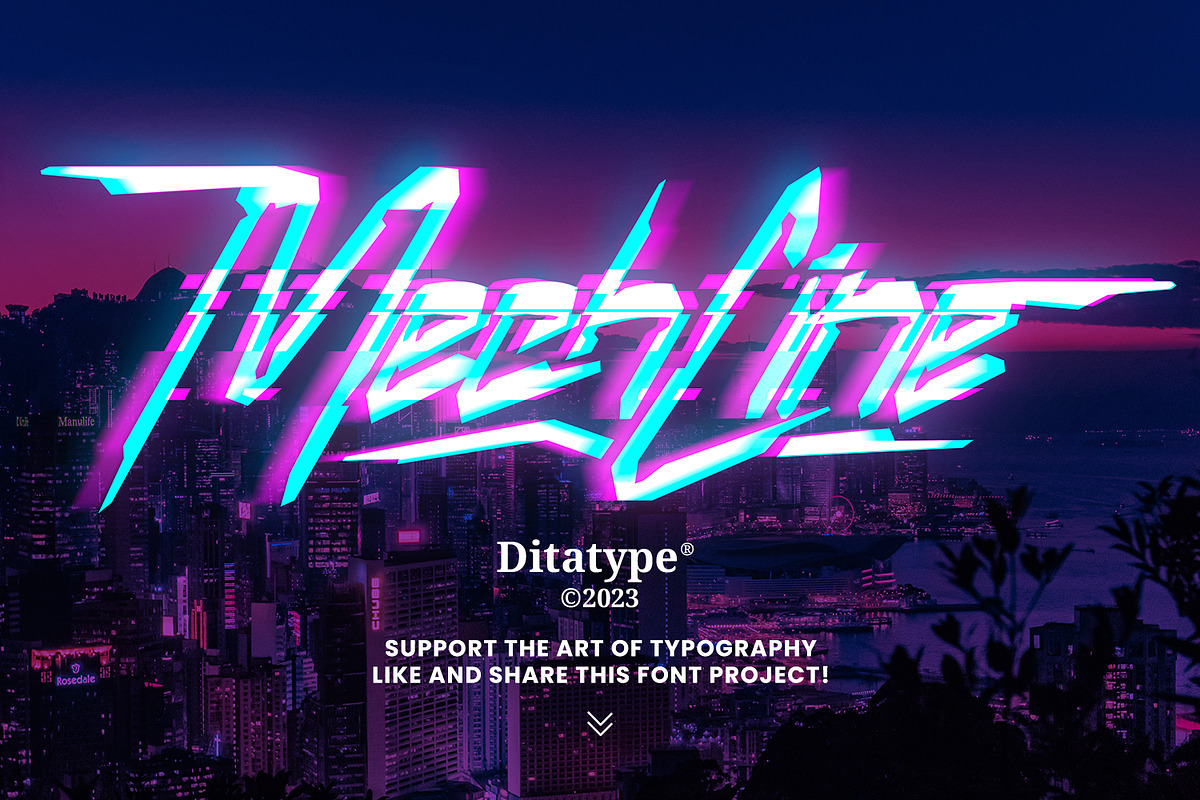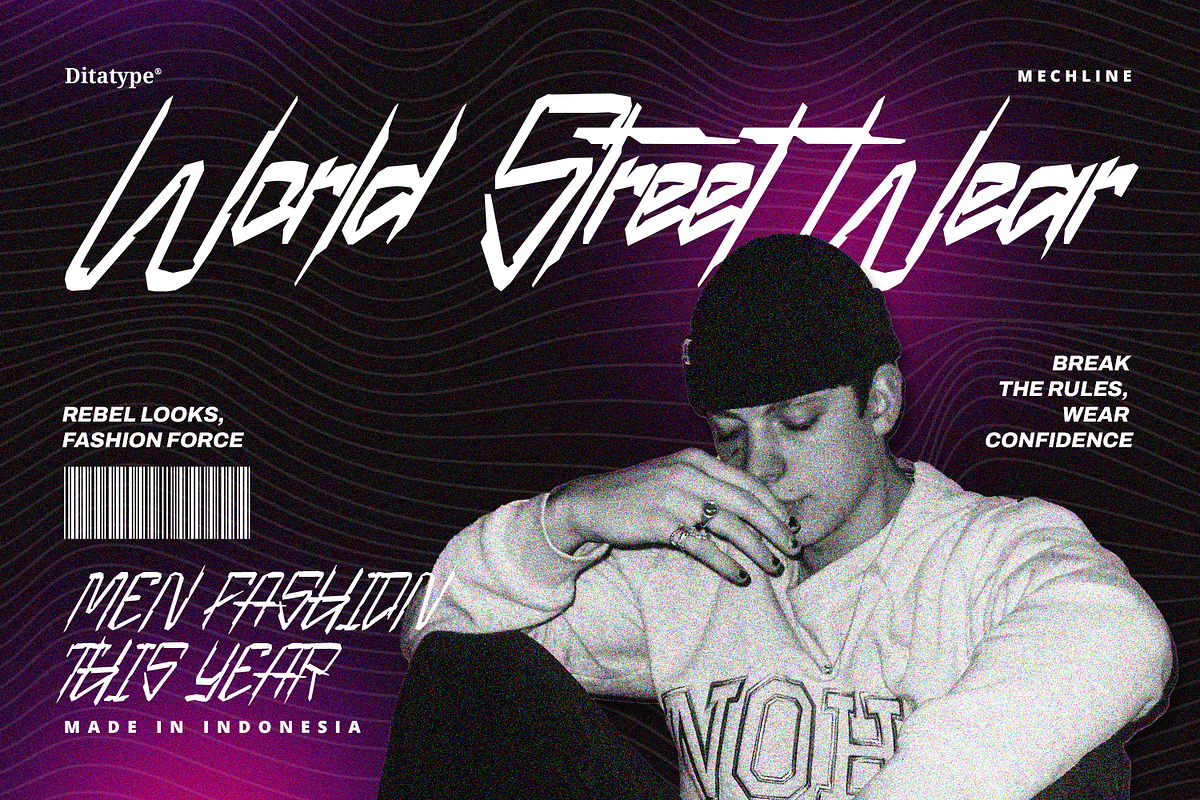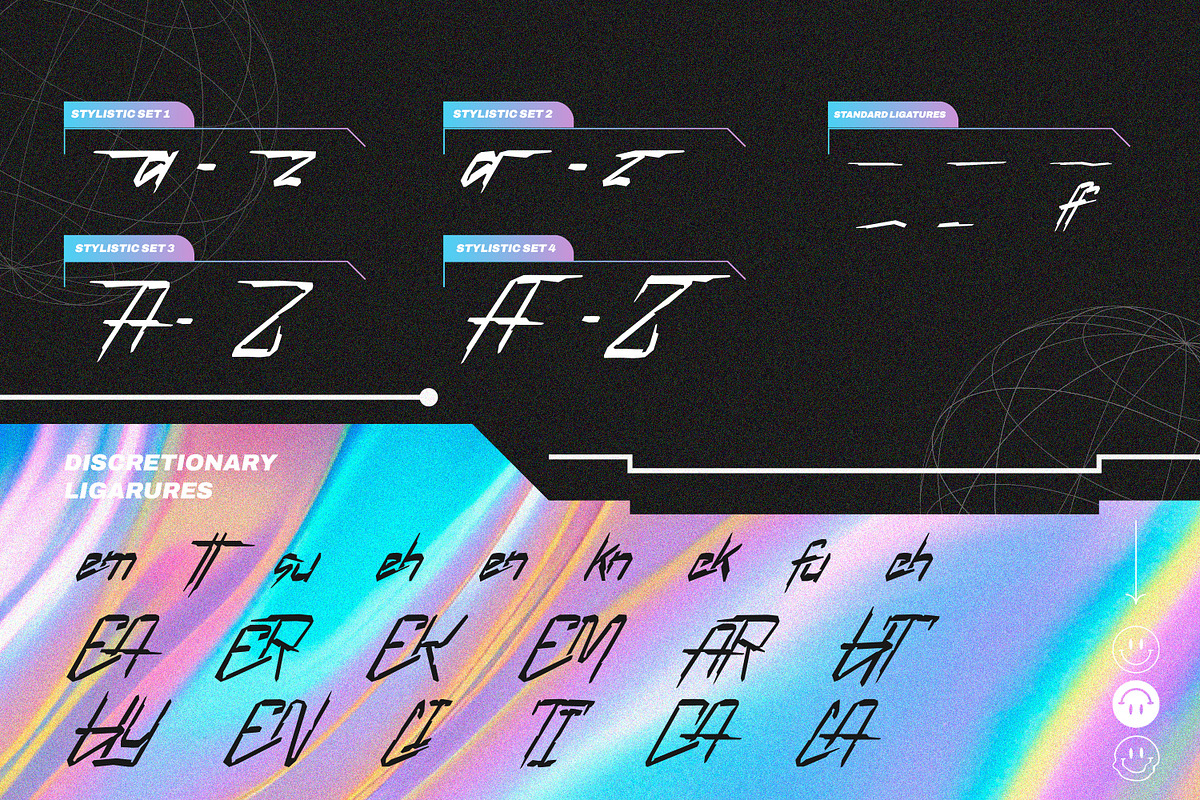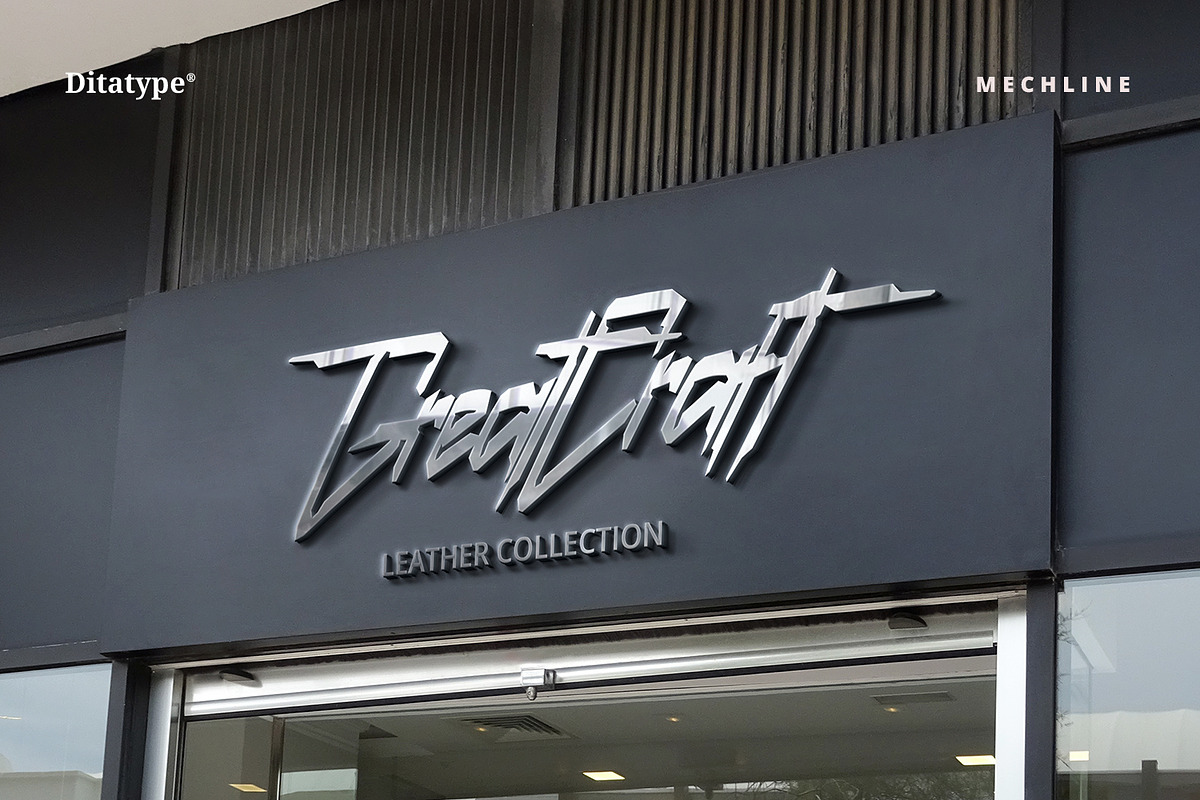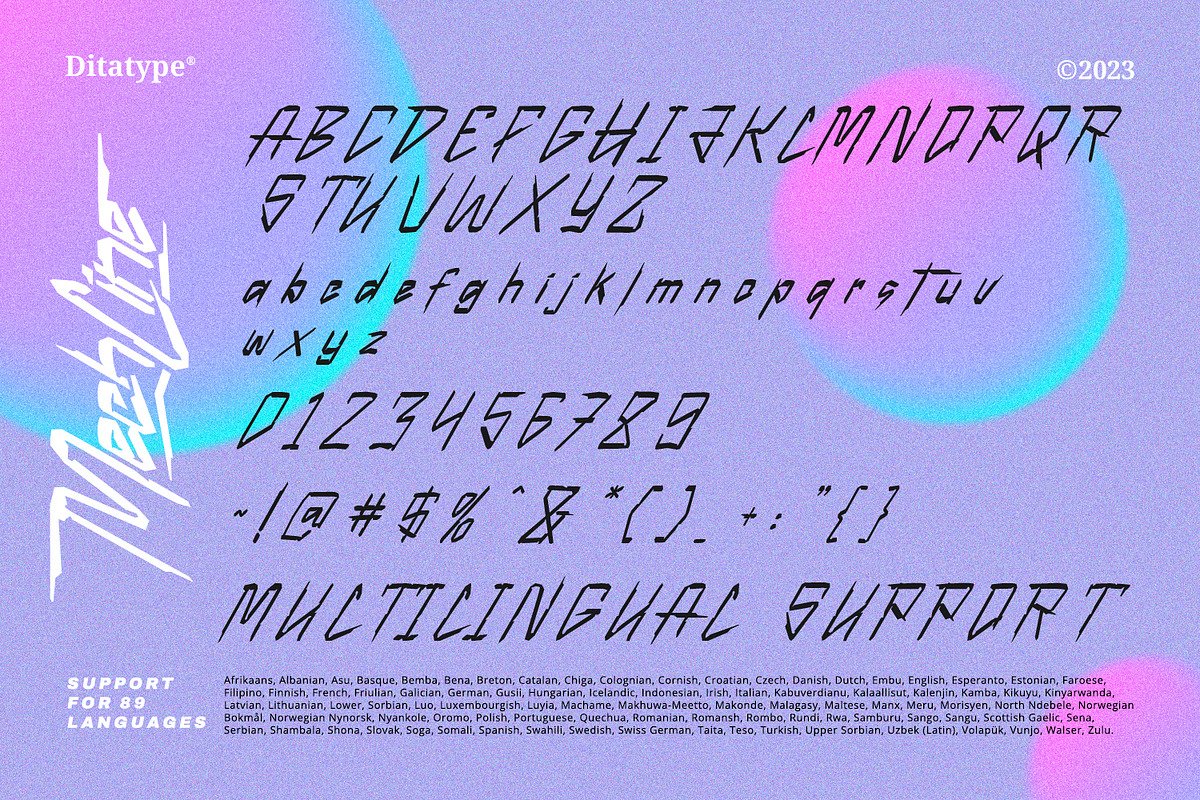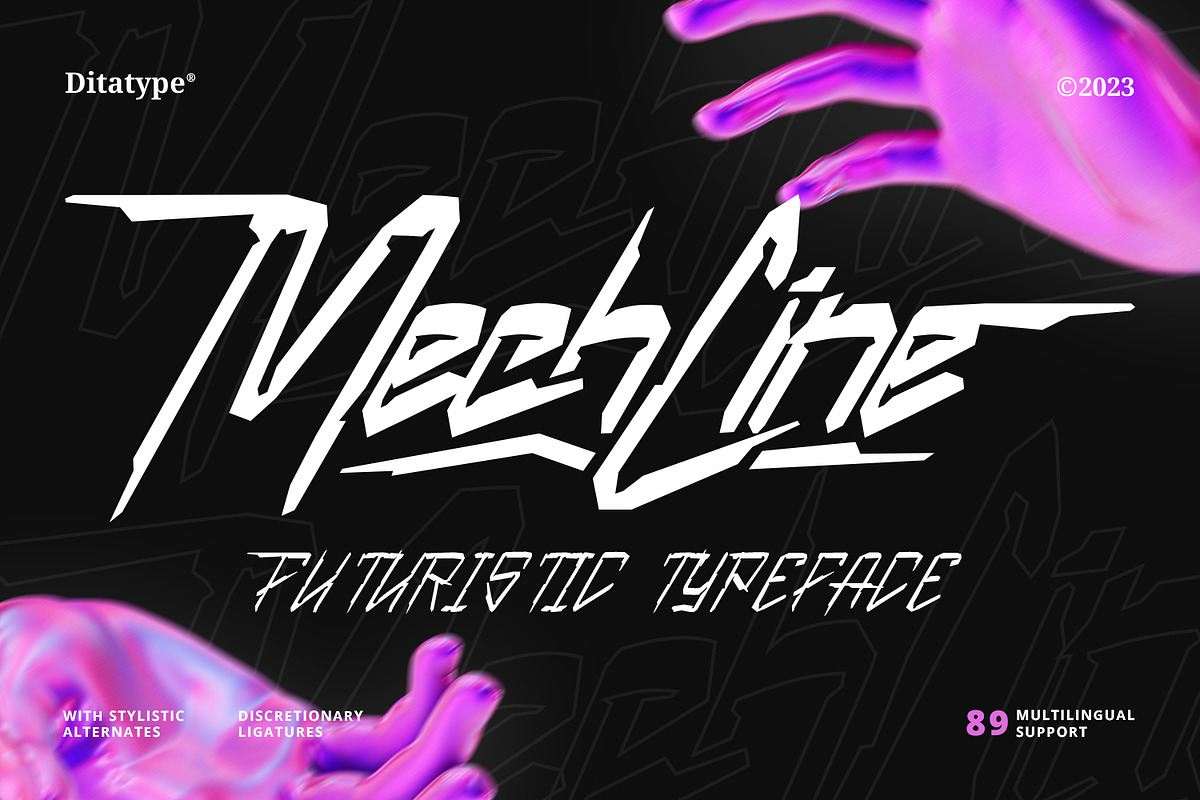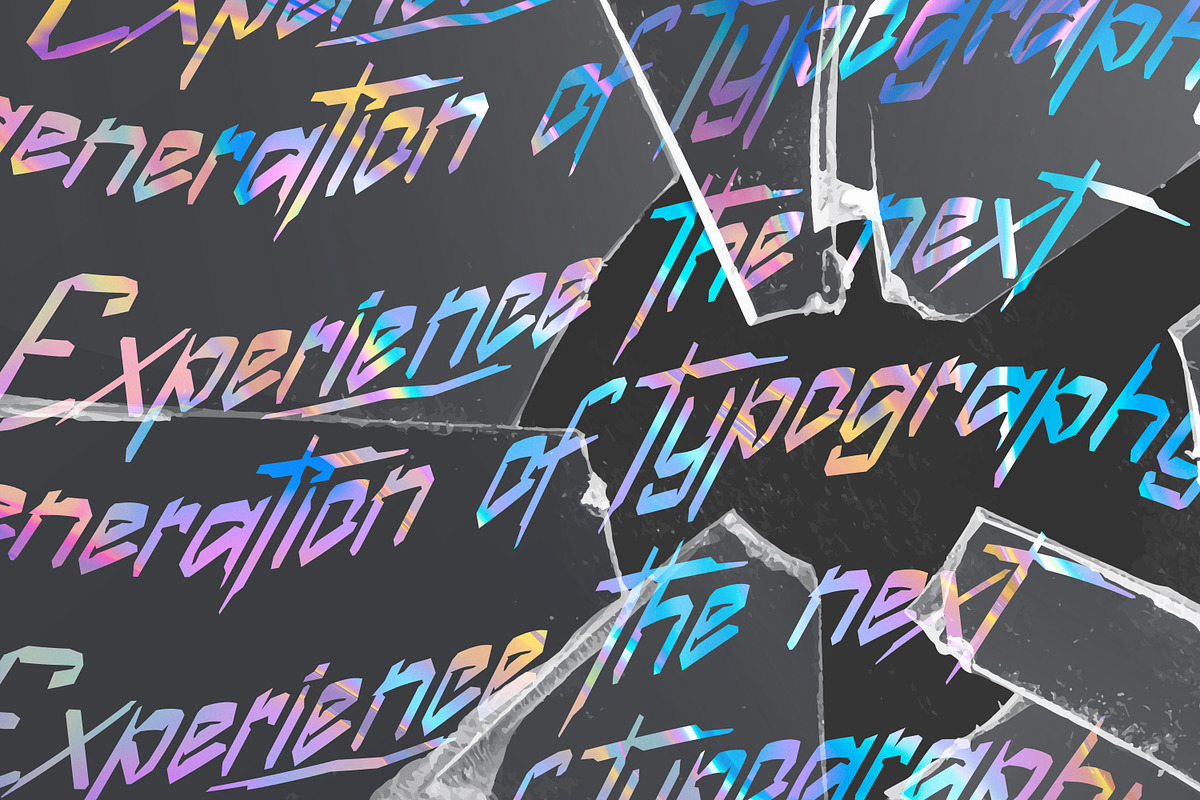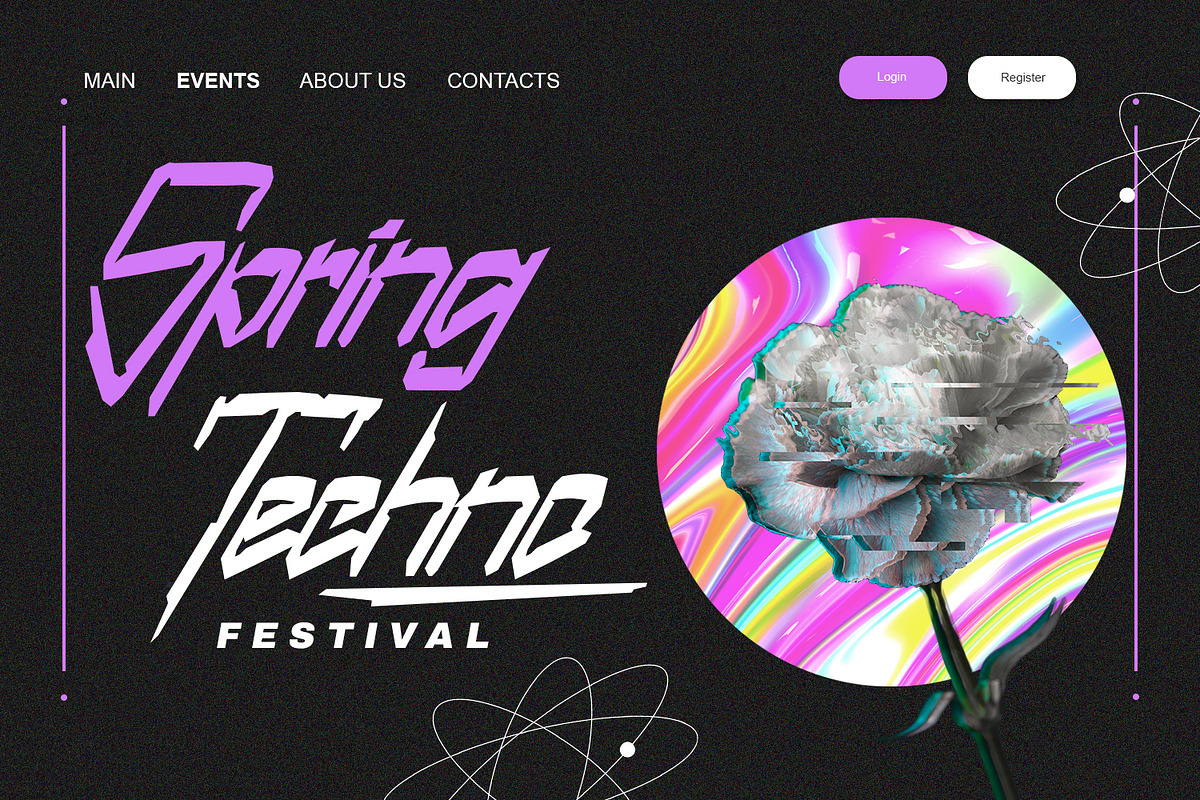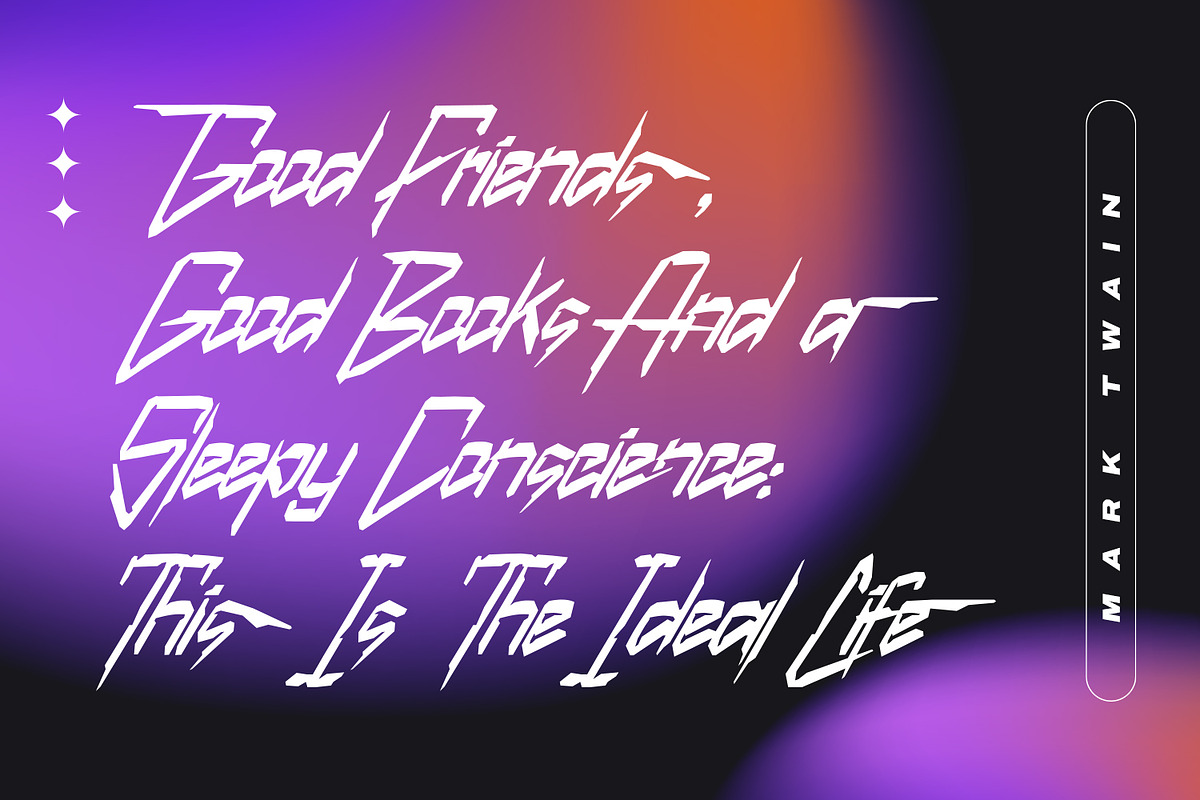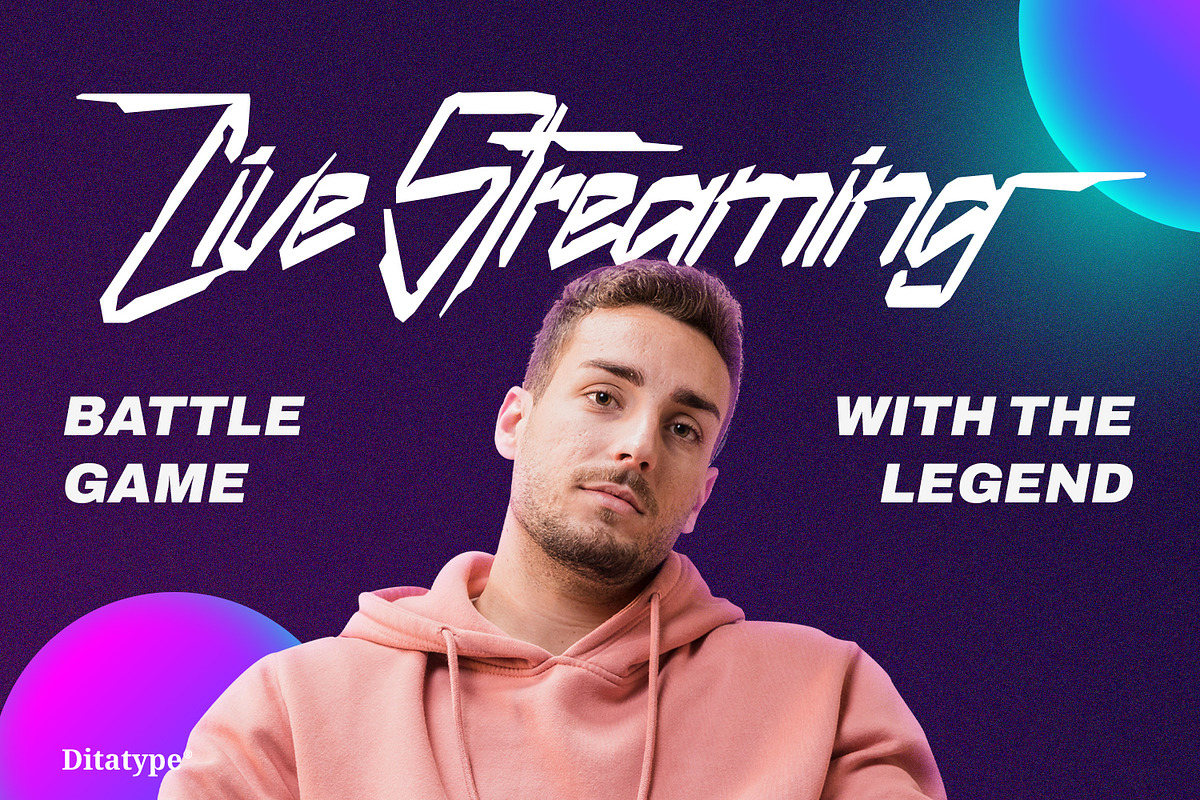
Mechline
Enter the future with Mechline, a visionary font that seamlessly blends futuristic aesthetics with artistic ingenuity. Mechline creates a cutting-edge look that pushes the boundaries of modern design.
The characters in Mechline embody the essence of the future, with a weight that strikes the perfect balance between elegance and technological advancement. The artistic letter shapes evoke a sense of creativity, giving each character a distinct and avant-garde identity. Mechline's irregular outlines add an element of unpredictability, contributing to its futuristic allure. Enjoy the features here.
- Stylistic Sets
Mechline fits in headlines, logos, posters, flyers, branding materials, greeting cards, print media, editorial layouts, and many more designs. Find out more ways to use this font by taking a look at the font preview.